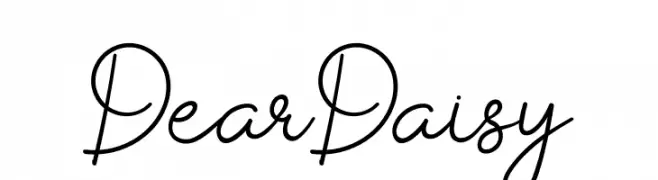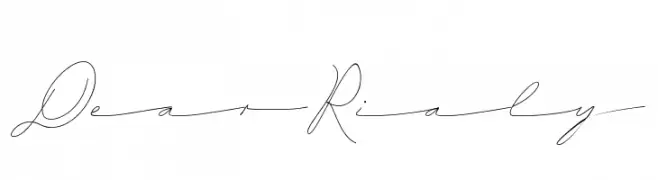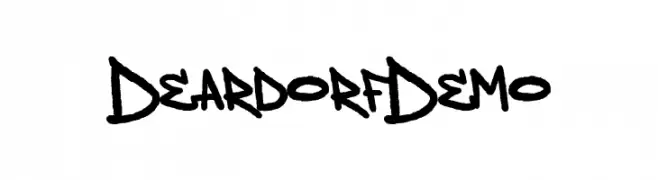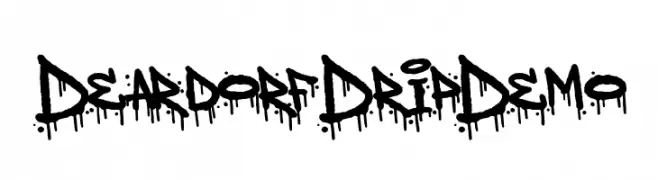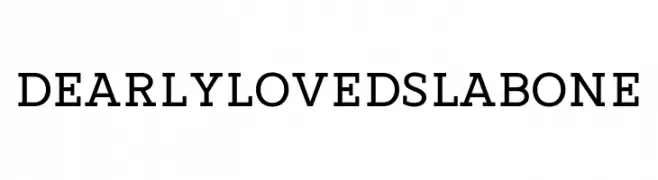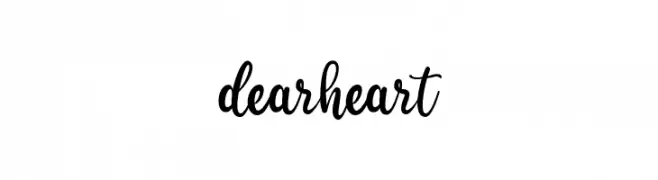
A bold slab serif font with strong, block-like serifs and balanced spacing.
A charming, fluid handwritten script with elegant, flowing characters.
A delicate and elegant script font with flowing, cursive strokes.
A bold, graffiti-inspired font with dynamic and angular letterforms.
A bold, playful handwritten font with dynamic strokes and a casual style.
A bold, graffiti-inspired font with a distinctive dripping effect.
A fluid and elegant script font with smooth, flowing lines and cursive letterforms.
A bold, brush-style font with a dynamic and artistic flair.
A bold, brush-style italic font with dynamic and expressive strokes.
A charming and elegant script font with flowing, cursive letterforms.